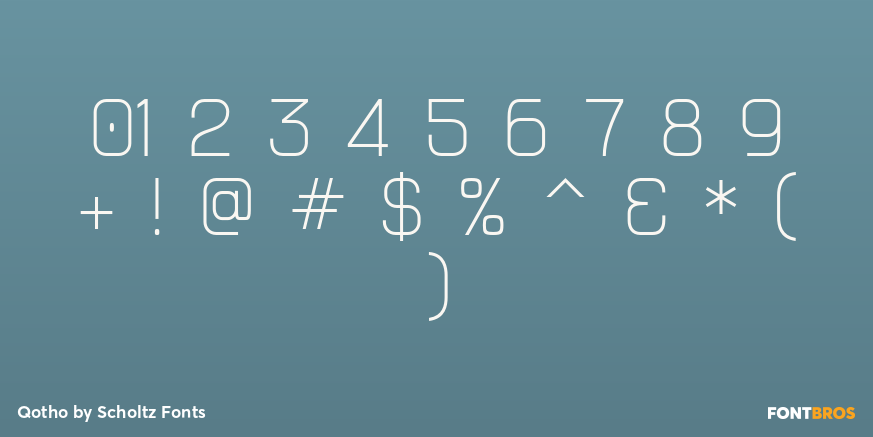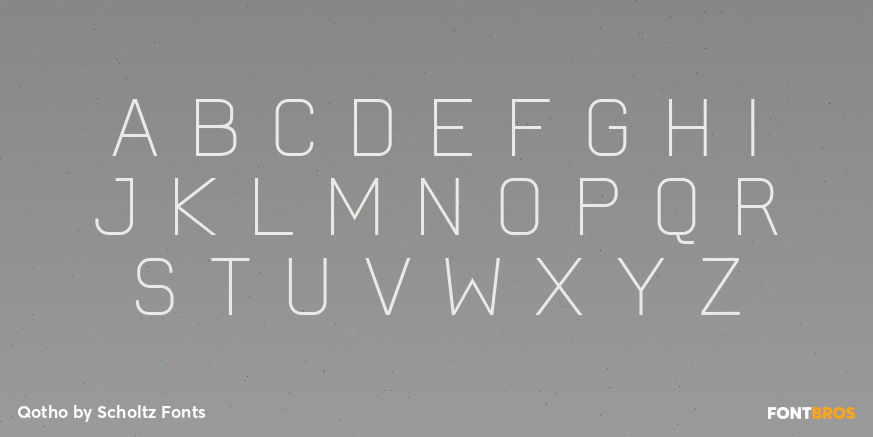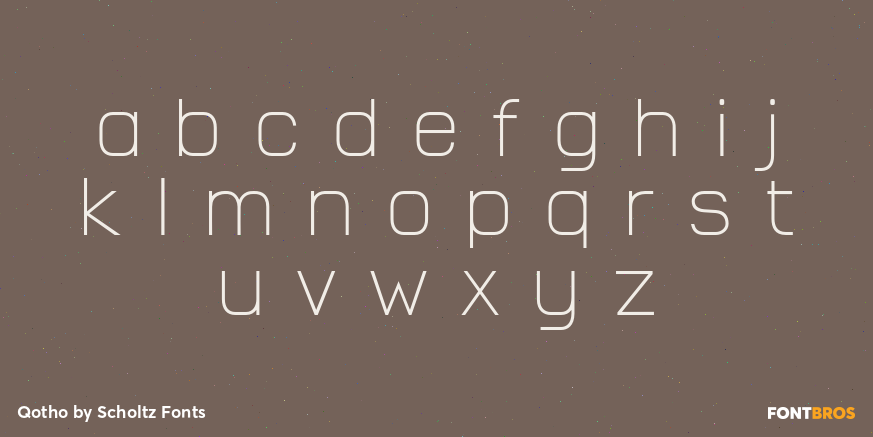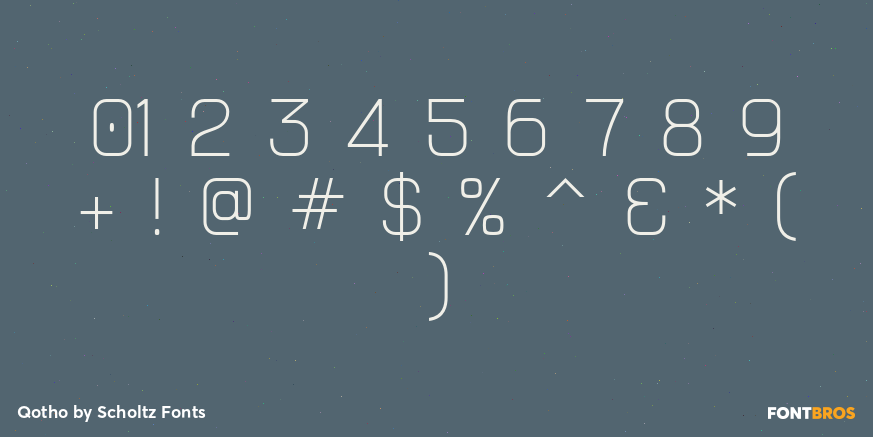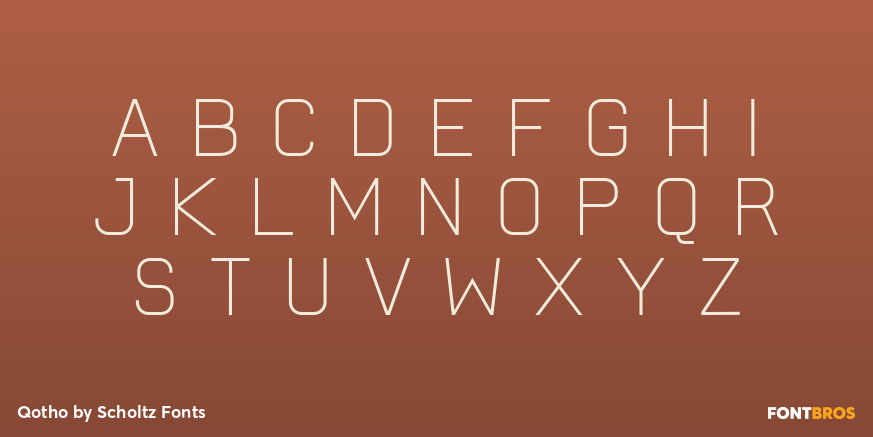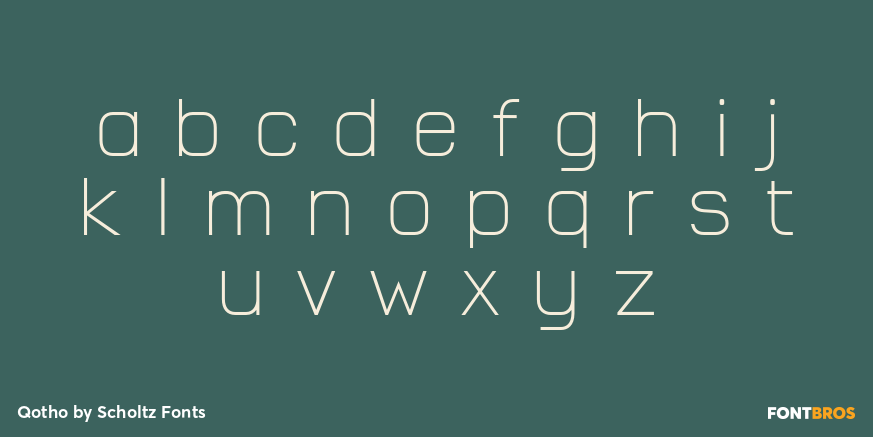
Qotho
Font Family by Scholtz Fonts
Qotho is a clean, geometric sans serif font, available in five weights. Qotho Dark, Qotho Medium, Qotho Light and Qotho Thin also come in two widths, regular and Cond. Clear and versatile, Qotho is designed for magazine pages, newspapers etc. Its large x-height and simple lines make it extremely legible.
The font contains over 235 characters - (upper and lower case characters, punctuation, numerals, symbols and accented characters are present). It has all the accented characters used in the major European languages.